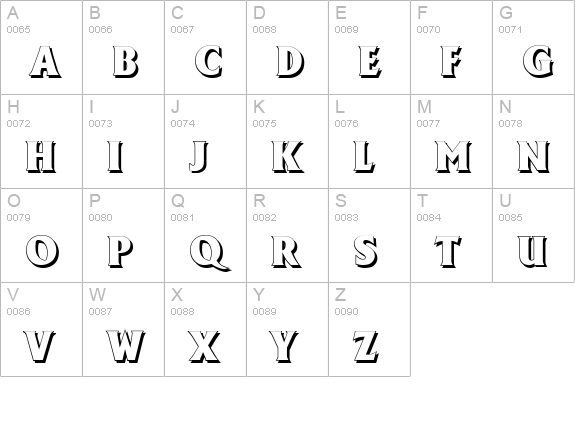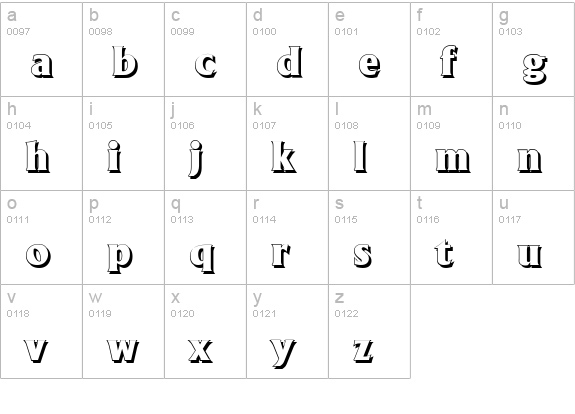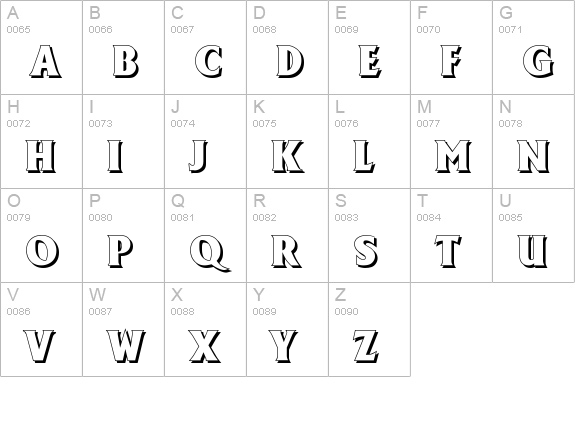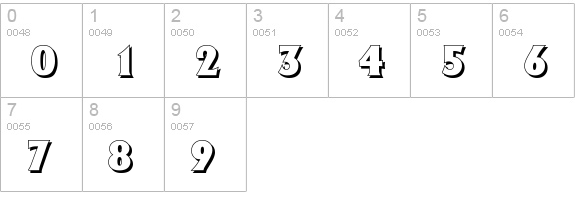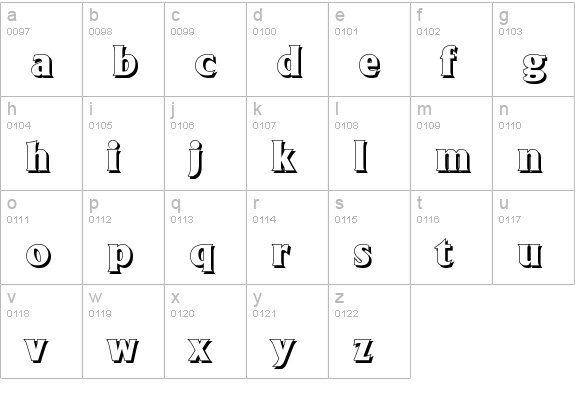
AdelonShadow-Heavy-Regular is a heavy, high-impact variant in the AdelonShadow typeface family \xE2\x80\x94 well suited to high-impact headlines, posters, and display advertising.
AdelonShadow-Heavy-Regular font is a bold and striking typeface that exudes power and authority. With its heavy strokes and distinctive shadow effect, this font is perfect for making a bold statement in your designs. Whether you are creating posters, headlines, or logos, AdelonShadow-Heavy-Regular will command attention and leave a lasting impression. The best part? AdelonShadow-Heavy-Regular font is completely free to download at FontsMarket.com. You can easily access this versatile font and use it in your projects without any cost. Embrace the boldness of AdelonShadow-Heavy-Regular and elevate your designs with its impactful presence. Download it now and unleash the power of this striking font in your creative endeavors.